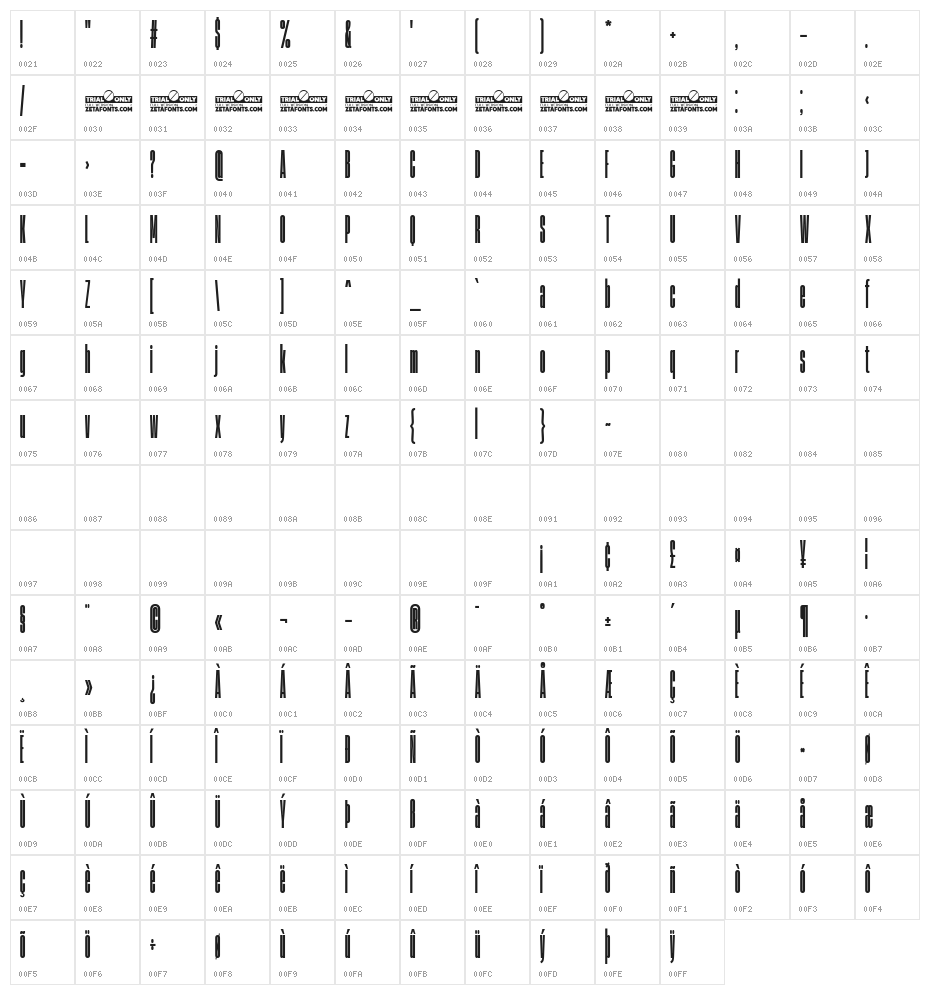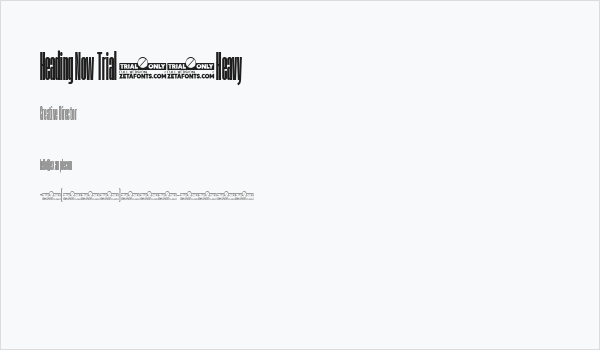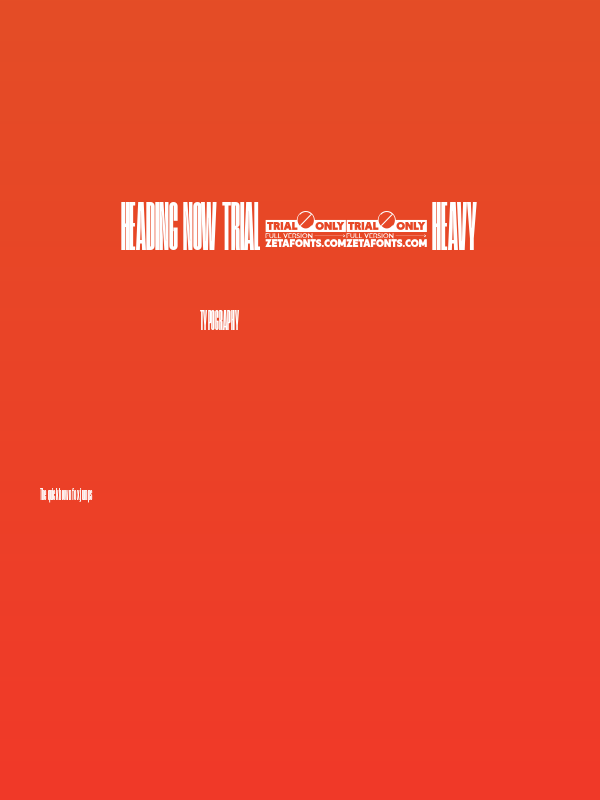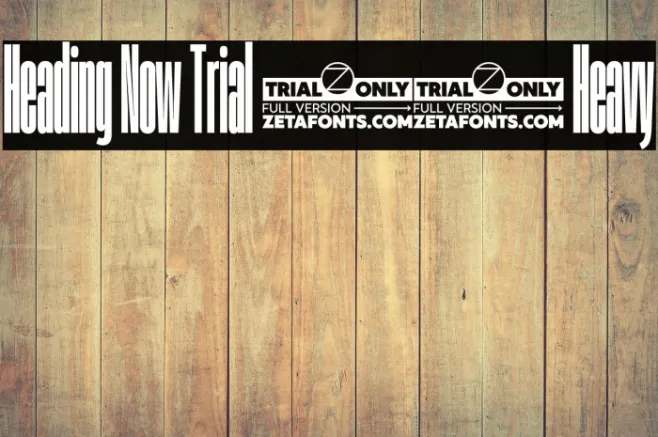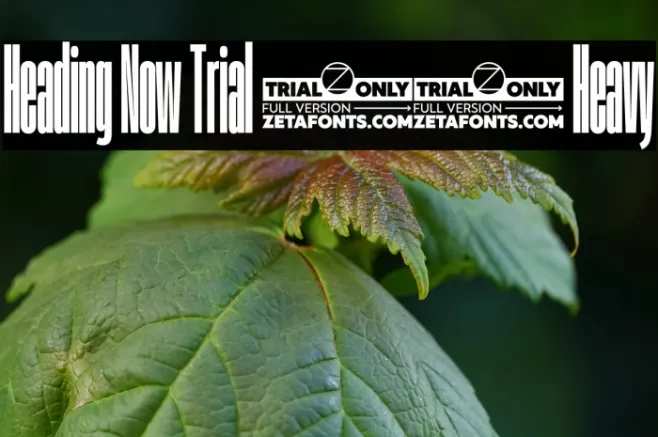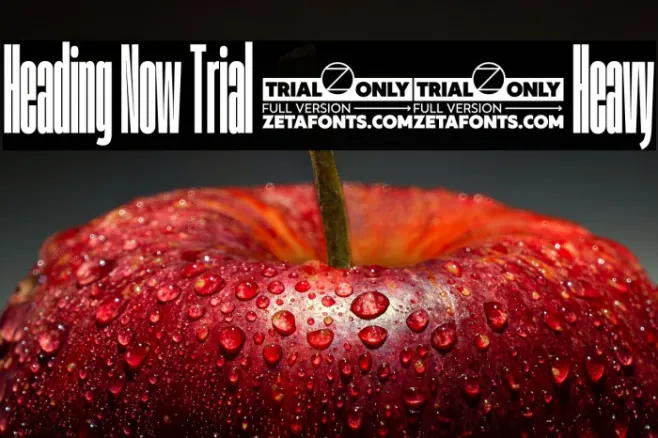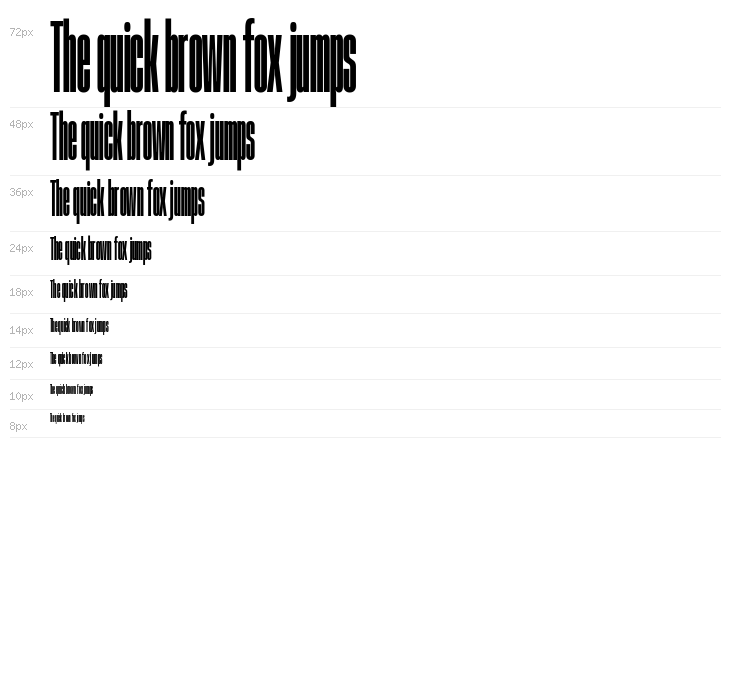
Heading Now Trial 08 Heavy Font
Heading Now Trial 08 Heavy Description
This font features a bold and heavy design with a strong vertical emphasis, characterized by its tall and narrow letterforms. The uppercase and lowercase letters maintain a consistent width, creating a uniform appearance. The font's high contrast between thick and thin strokes adds to its dramatic and impactful style. The characters are tightly spaced, enhancing the compact and dense look. This typeface is particularly suited for making bold statements and capturing attention with its striking presence.
| Proposed Projects | Ideal for headlines, posters, and branding projects where a strong visual impact is desired. |